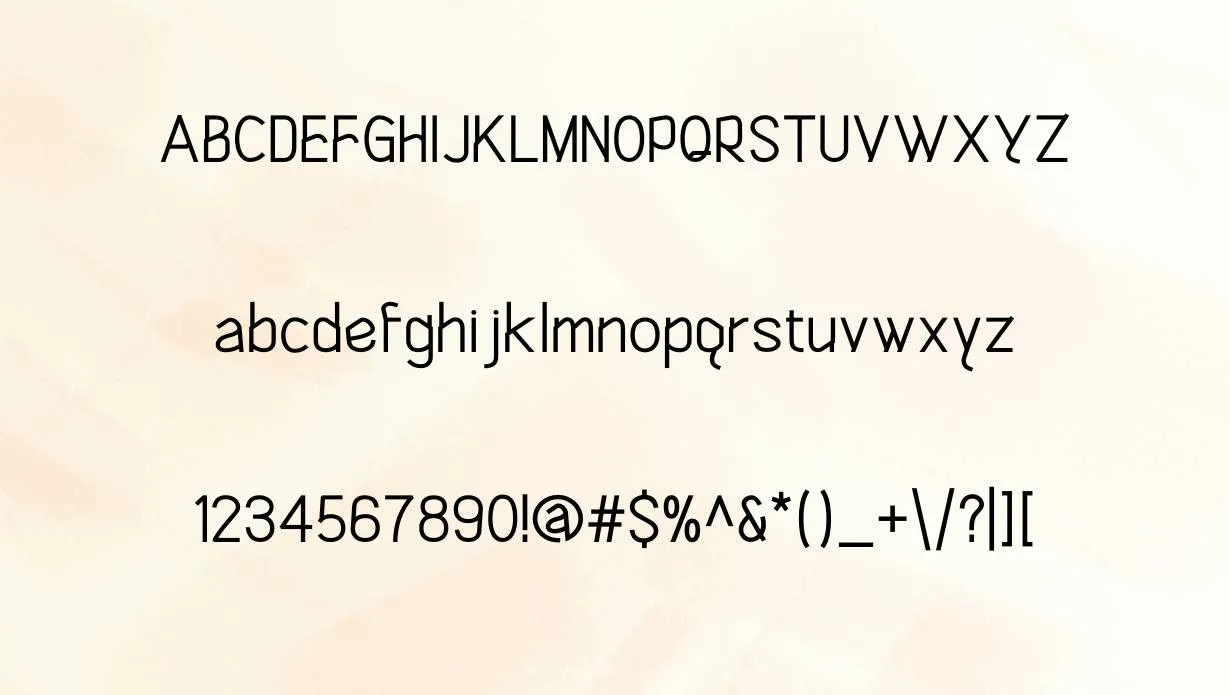
The Cliche font resonates with a familiar and recognizable style, offering a sense of comfort and nostalgia. In Adobe Photoshop, it creates designs that feel comforting and familiar, perfect for evoking nostalgia.
With CSS, it bestows a classic touch to web elements, offering a sense of timelessness. In Canva, it’s ideal for producing nostalgic and classic social media visuals or creating a sense of familiarity in event graphics.
| Name | Cliche Font |
| Designer | Andrey Belonogov |